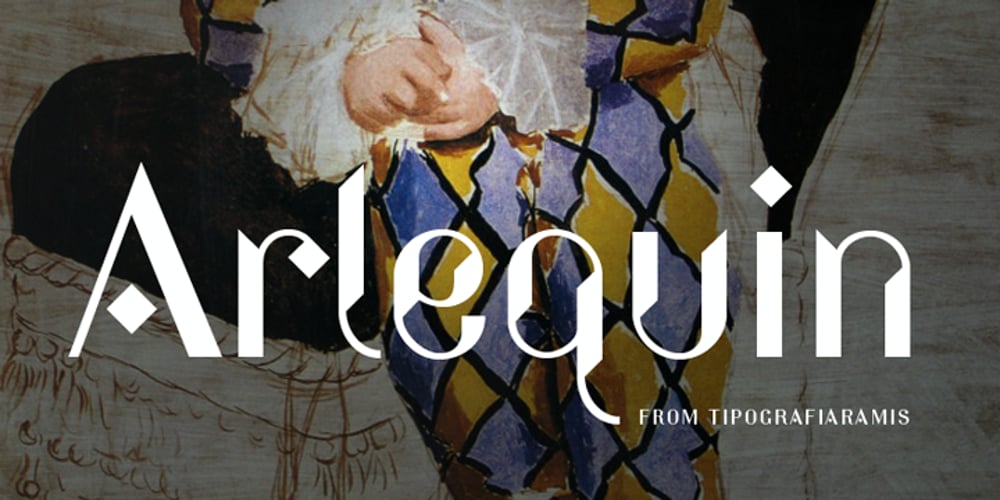
Arlequin Font Family was designed by Ramiz Guseynov and published by TipografiaRamis. Arlequin contains 1 styles and family package options. Arlequin is a high-contrast sans serif decorative font. The most distinguished characteristic of this typeface is its lowercase letters. Their shapes, a high-contrast clash of bold angular fragments with arched thin counterparts, make for a dramatic impact on entire font visual impression. Arlequin is recommended for use as a headline or short-text font.